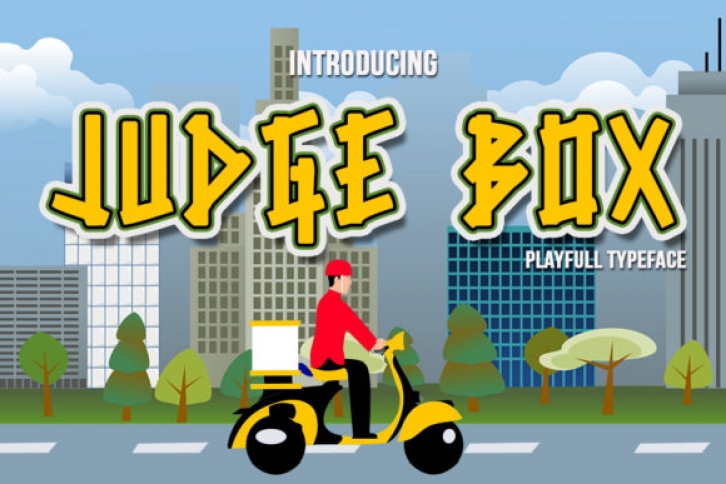
Judge Box is a unique and cool display font. It embodies playfulness and authenticity and is ideal for any casual creation. This original look will appeal to a wide range of crafty ideas, from letterheads and titles, to stationery.